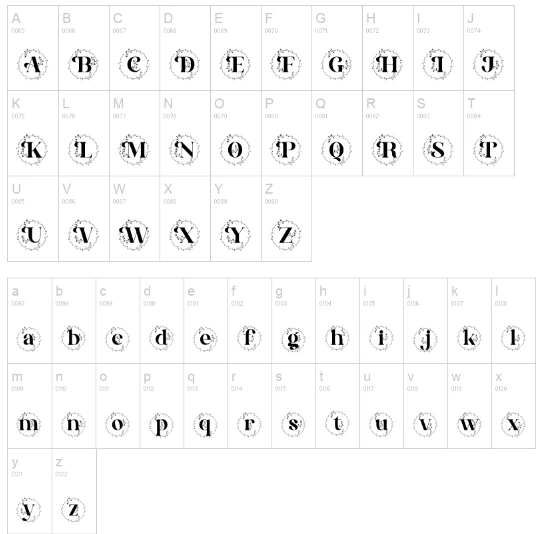
Alexandria Monogram Font- Download Free
Alexandria Monogram Font is a beautiful ornamental font with lavish leaf embellishments. Letterena Studios created and shared the Font. PhotoShop, Adobe Illustrator, Adobe Indesign, Corel Draw, and Microsoft Office are among the programs that support this Font. You’ll need an application that supports OpenType features, such as Adobe Illustrator CS, Adobe Indesign, or CorelDraw X6-X7, to activate the OpenType Stylistic Alternates.
The Font lets you convey elegance and grace in online projects such as websites, applications, advertisements, and printed projects such as business cards, posters, flyers, brochures, magazines, letterheads, branding and packaging designs, invitation cards, menus, and more. However, I believe the typeface is an excellent choice for use in headings, whether in a newspaper, book, or magazine.
Alexandria Monogram Font Character map